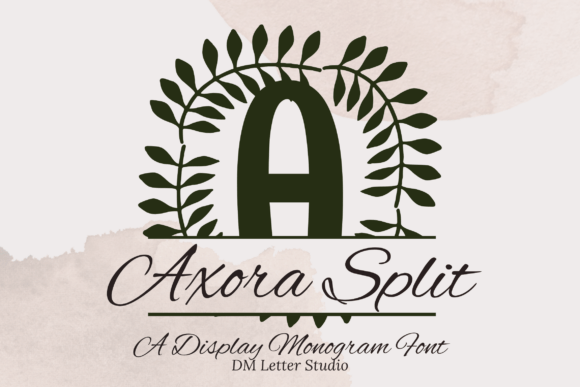
Axora Split Monogram Font: Elevate Your Designs with Elegance and Sophistication
Are you looking for a font that combines classic serif beauty with modern flexibility? Look no further than the Axora Split Monogram Font. This sleek and sophisticated serif font features a split-letter design, making it perfect for elegant personalization. With its refined uppercase forms divided by a clean horizontal space, Axora Split Monogram gives you room to add custom names, initials, or event dates between the halves.
Key Features of Axora Split Monogram Font
- Split Serif Design: Horizontal cut for easy name and text insertion.
- Elegant Monogram Style: Blends minimalism and classic serif flair.
- Perfect for Personalized Projects: Great for weddings, branding, packaging, signage, and DIY crafts.
- Complete Character Set: Uppercase A–Z, numerals, punctuation, and multilingual support.
Endless Possibilities for Personalization
Axora Split Monogram is designed to help you create memorable, bespoke designs that stand out. Whether you’re crafting wedding signage, home décor, or brand elements, this font helps you achieve a polished, timeless result. Every character is crafted with care, emphasizing structure, proportion, and legibility—so it works well across both print and digital mediums.
10 Inspiring Ways to Use Axora Split Monogram Font
- Wedding Signage: Create elegant wedding signs, banners, and decorations with custom names and dates.
- Boutique Logos: Elevate your brand with a sophisticated logo that features your initials or business name.
- Upscale Packaging: Add a touch of luxury to your product packaging with custom monograms or names.
- Personalized Cricut Crafts: Make unique DIY crafts, such as customized gifts, decorations, or cards.
- Home Décor: Design beautiful personalized home decor items, like monogrammed wall art or customized throw pillows.
- Branding: Use Axora Split Monogram to create a cohesive brand identity that exudes elegance and sophistication.
- Signage: Create eye-catching signs for events, businesses, or personal use with custom text and monograms.
- Digital Art: Incorporate Axora Split Monogram into your digital art, such as illustrations, graphics, or social media graphics.
- Stationery: Design beautiful, personalized stationery, including letterheads, invitations, or greeting cards.
- Gifts: Create customized gifts, such as personalized mugs, tote bags, or jewelry, with Axora Split Monogram.
Why Choose Axora Split Monogram Font?
- Sophisticated Design: Elevate your designs with a luxurious, high-end font.
- Flexibility: Use Axora Split Monogram for a wide range of projects, from print to digital.
- Easy to Use: Seamlessly integrate Axora Split Monogram into your workflow.
- Multilingual Support: Use the font for projects in various languages.
- Timeless Appeal: Create designs that stand the test of time with a classic serif font.
Axora Split Monogram Font is the perfect choice for anyone looking to add a touch of elegance and sophistication to their designs. With its unique split-letter design, refined uppercase forms, and clean horizontal space, this font is ideal for creating memorable, bespoke designs. Whether you’re a designer, crafty DIY enthusiast, or business owner, Axora Split Monogram Font is sure to elevate your projects and help you achieve a polished, timeless result.